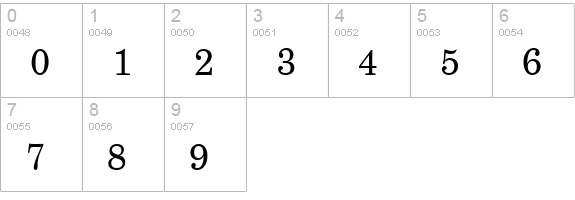
CenturySchTEE Font Details
CenturySchTEE font is a modern and stylish typeface that brings a unique touch to any design project. With its sleek lines and elegant curves, this font is perfect for a wide range of creative applications, from branding to invitations to social media graphics. The versatility of CenturySchTEE font makes it a must-have for designers looking to add a contemporary flair to their work. Best of all, CenturySchTEE font is completely free to download at FontsMarket.com. Whether you're a professional designer or a hobbyist looking to spice up your projects, this font is easily accessible and ready to elevate your designs. Don't miss out on the opportunity to add CenturySchTEE font to your collection and take your creativity to the next level.